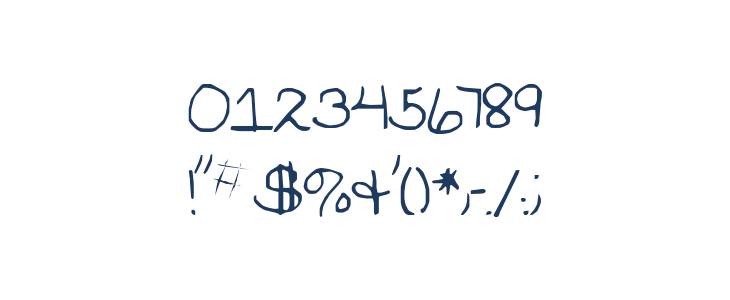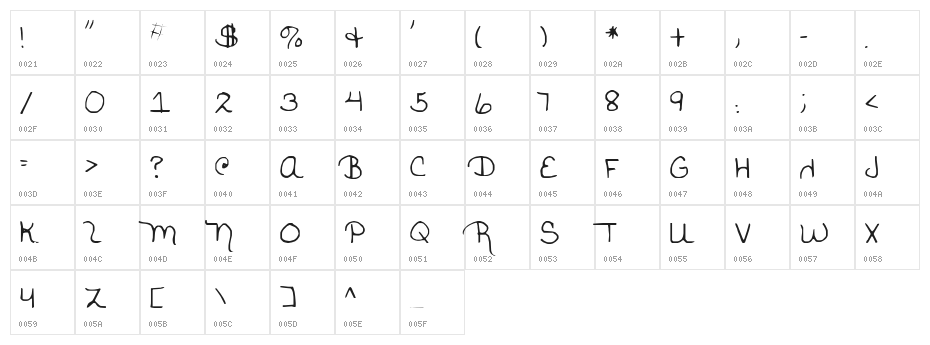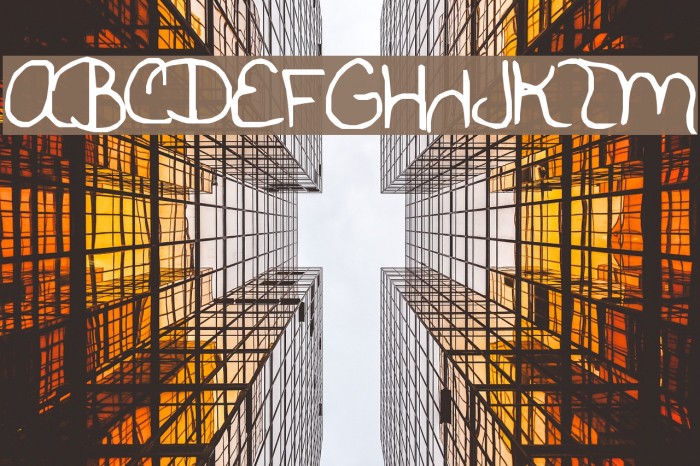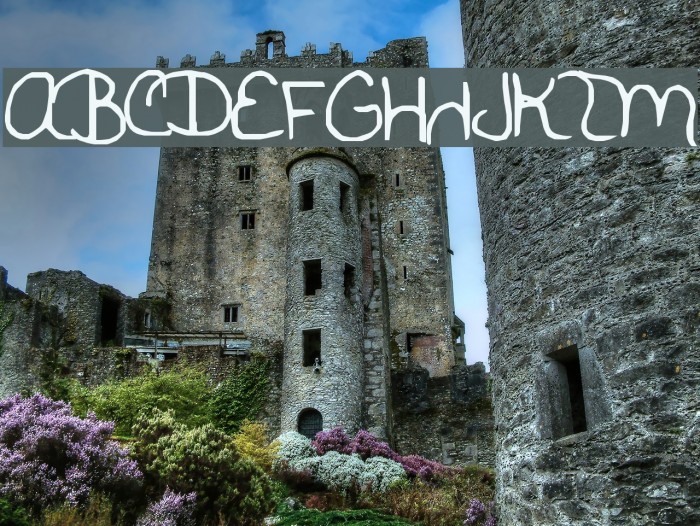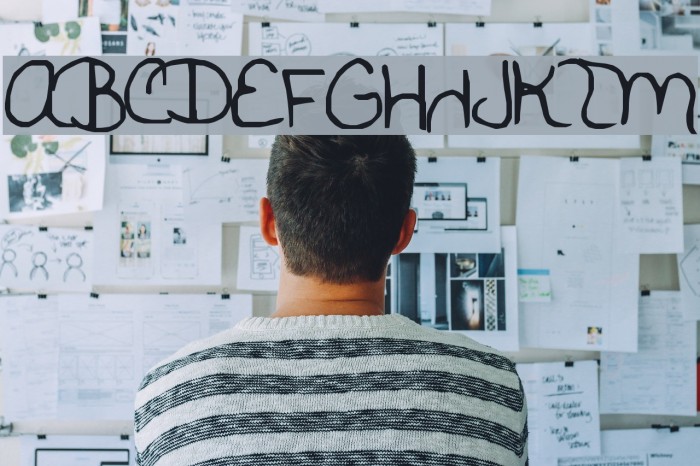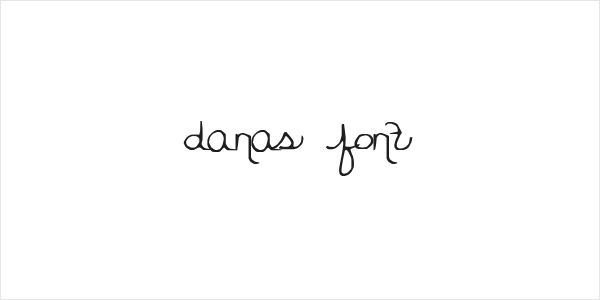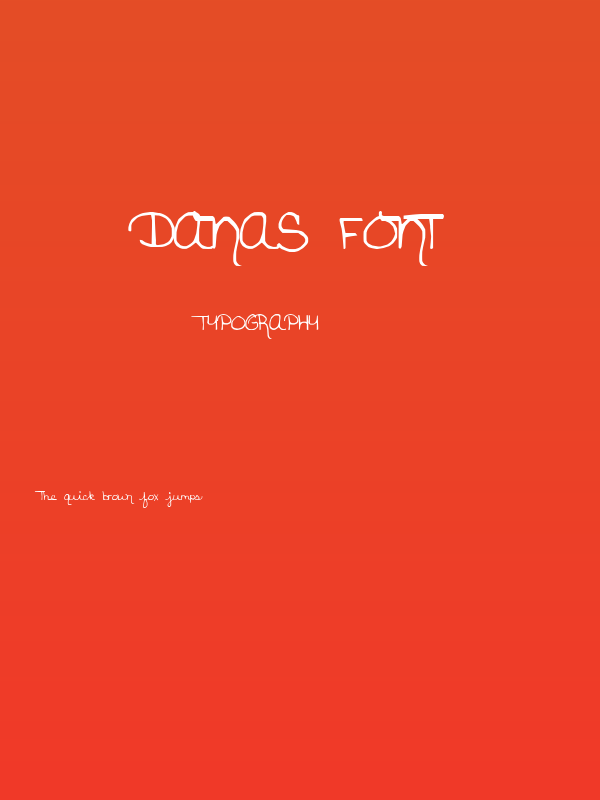
danas font Font
danas font Description
This font features a playful and casual handwritten style, characterized by its fluid and organic strokes. The letters are connected in a way that mimics natural handwriting, giving it a personal and informal feel. The uppercase letters maintain a consistent height, while the lowercase letters exhibit a slight variation in size, adding to the font's dynamic appearance. Numbers and special characters are crafted with the same playful touch, ensuring a cohesive look across all characters. The overall design is approachable and friendly, making it suitable for projects that require a personal touch.